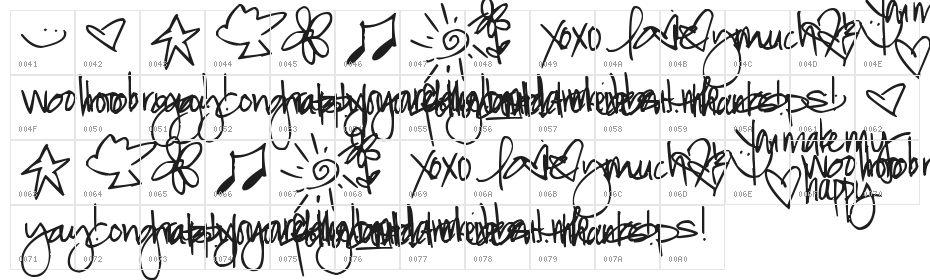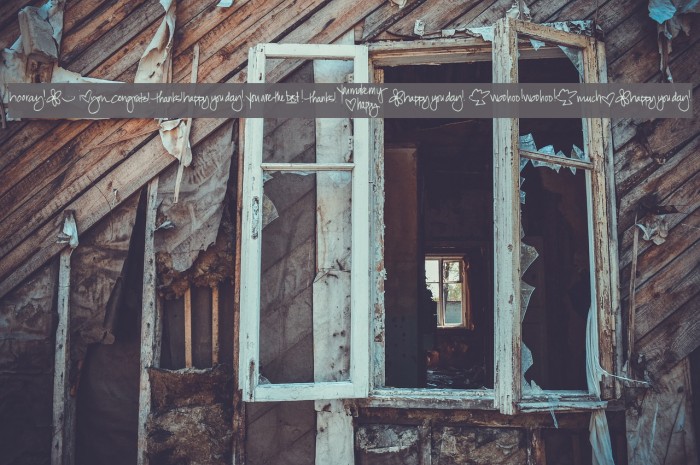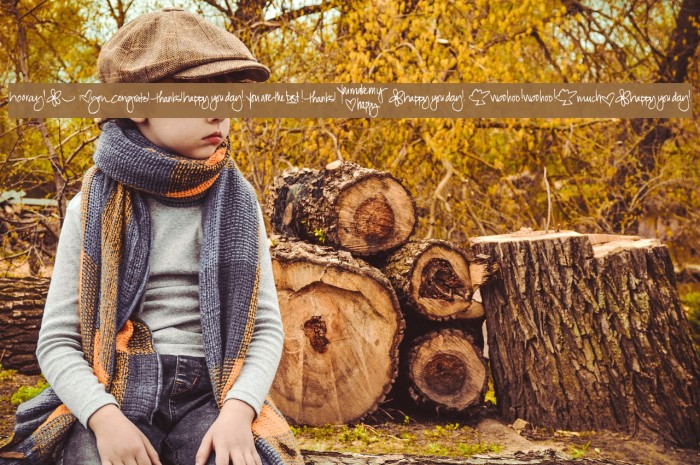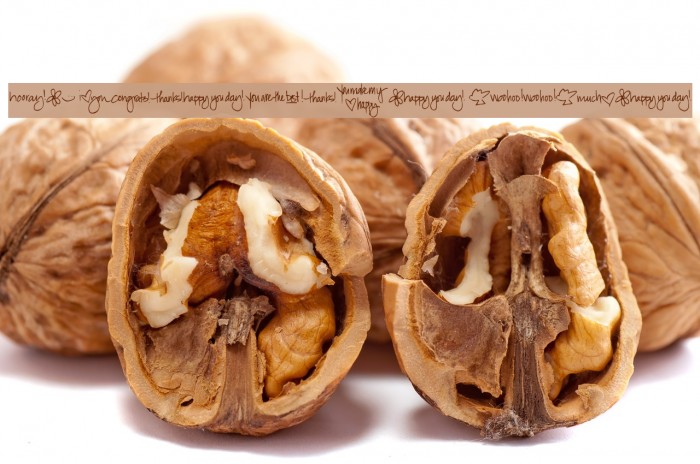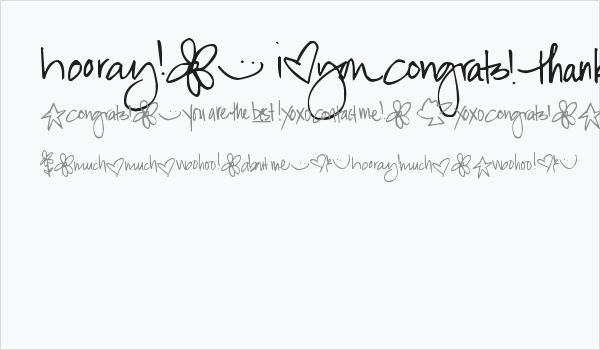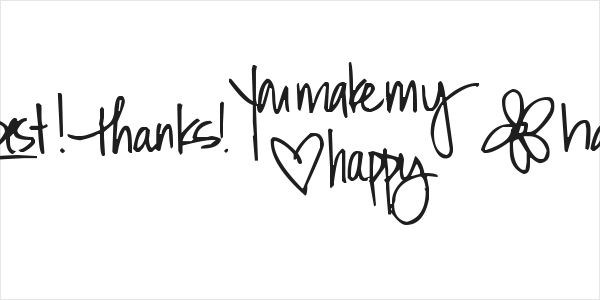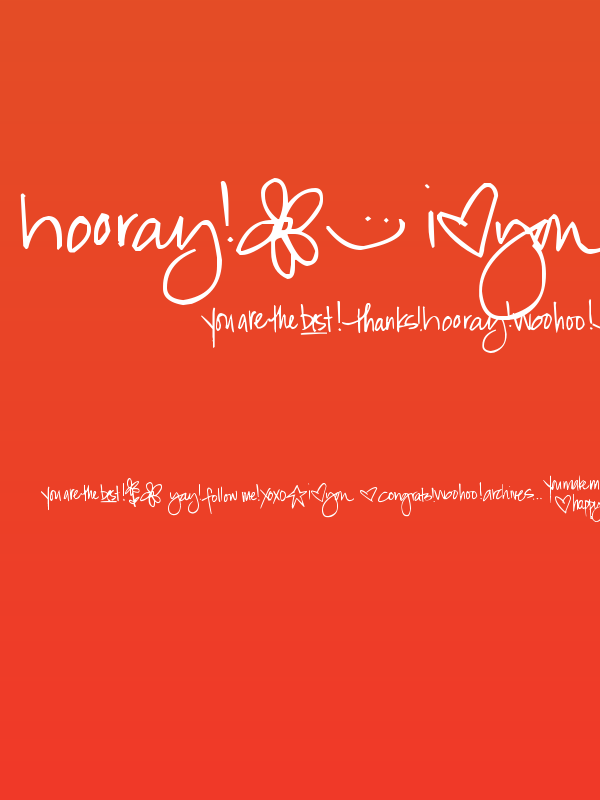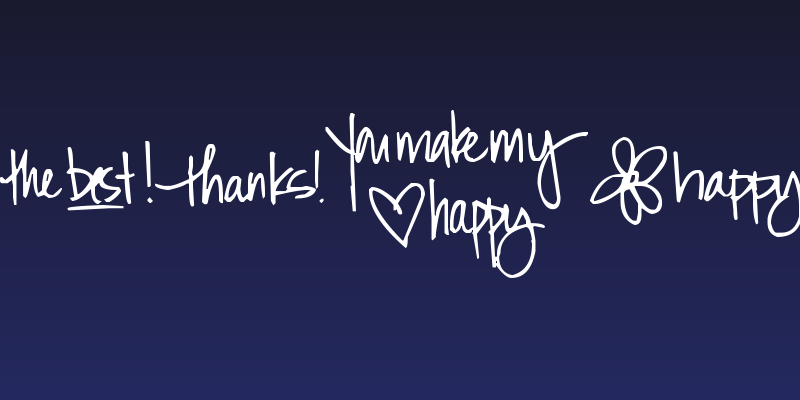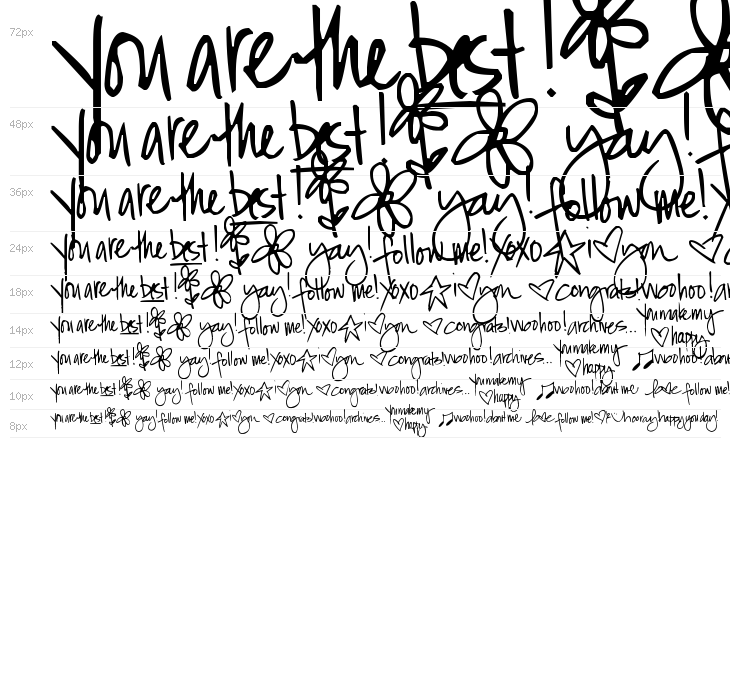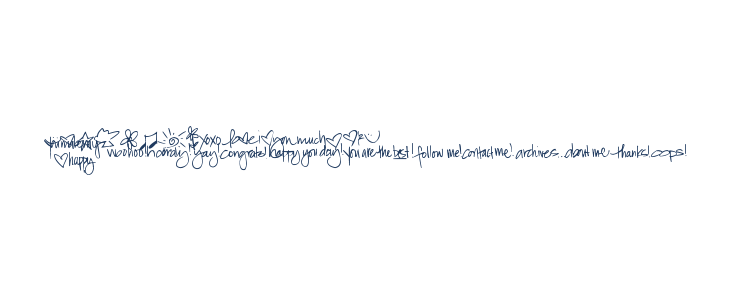
Pea Krystyne's Doodles Font
Pea Krystyne's Doodles Description
This playful and whimsical font features a series of doodles and handwritten elements that convey a sense of fun and creativity. The characters are designed with a casual, free-flowing style, incorporating various symbols like hearts, stars, and musical notes alongside the alphabet. The strokes are uneven and dynamic, giving it a lively and informal appearance. It's perfect for projects that require a personal touch or a sense of spontaneity, such as greeting cards, scrapbooking, or playful branding materials.
| Proposed Projects | Ideal for greeting cards, scrapbooking, playful branding, and creative projects needing a personal touch. |